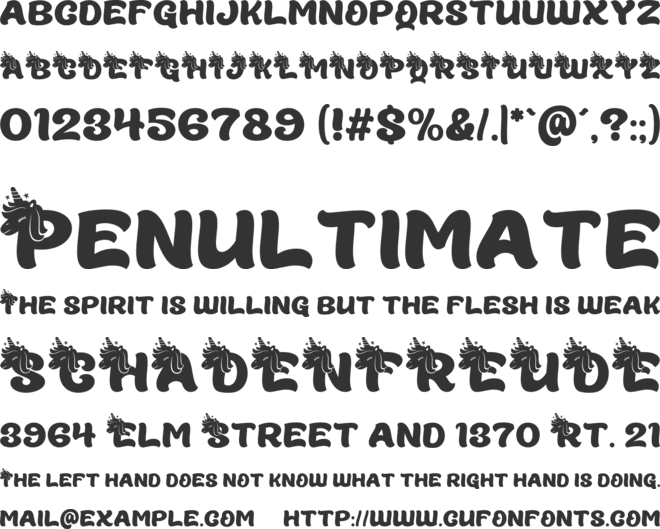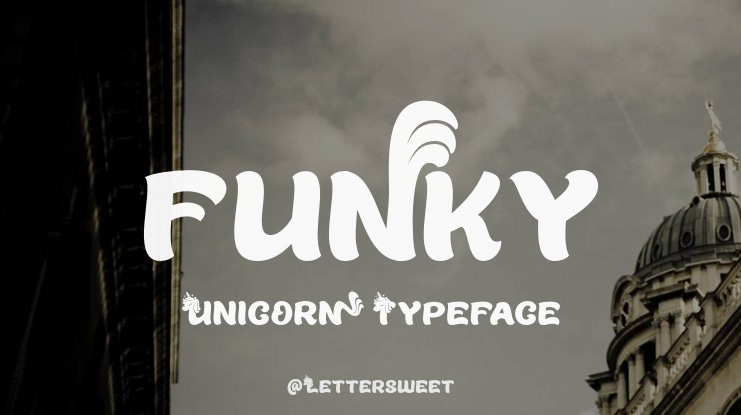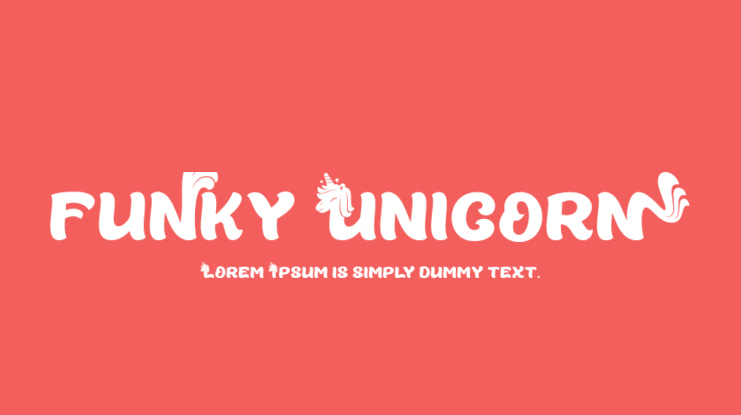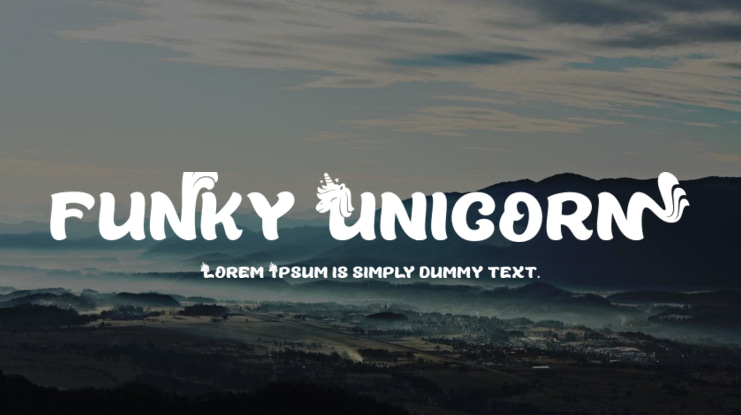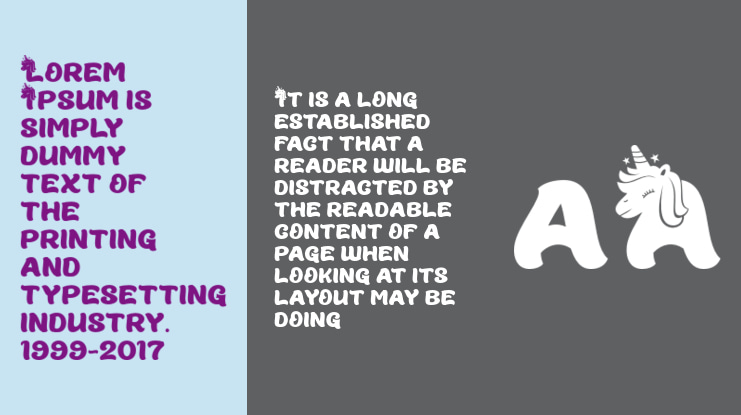
Funky Unicorn Font
Funky Unicorn is a display font with a unicorn theme. This font also has many alternates which make the design more attractive.
Funky Unicorn can be used for children’s designs. Can be made into t-shirts, hats, totte bags, bags, etc.